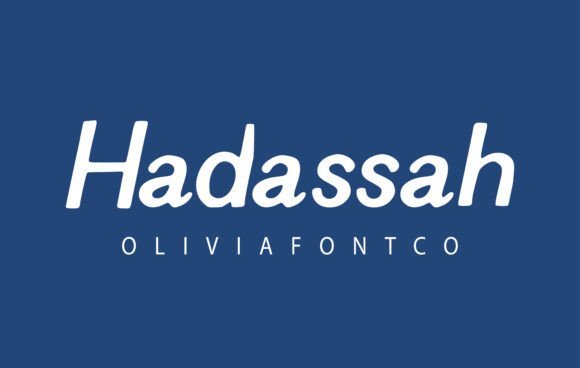
Hadassah Font: The Ultimate Choice for Creative Expression
Are you looking for a font that can add a touch of romance and elegance to your creative projects? Look no further than the Hadassah font. This authentic handwritten font is expertly designed to capture the hearts of designers and audiences alike. With its unique blend of sophistication and playfulness, Hadassah font is the perfect choice for a wide range of applications, from magazine headlines to wedding invitations.
The Story Behind Hadassah Font
Hadassah font is more than just a beautiful typeface; it’s a reflection of the creative vision of its designers. With a focus on legibility and aesthetics, this font is designed to be a true favorite among designers. Whether you’re working on a branding project, social media graphics, or a wedding invitation, Hadassah font is the perfect choice. Its romantic touch and authentic handwritten feel make it stand out from other fonts, giving your designs a unique and personalized look.
Key Features of Hadassah Font
So, what makes Hadassah font so special? Here are some of its key features:
- Authentic Handwritten Font: Hadassah font is designed to mimic the look and feel of handwritten text. Its authentic feel makes it perfect for designs that require a personal touch.
- Romantic Touch: With its elegant and sophisticated design, Hadassah font adds a touch of romance to any project.
- Legible: Despite its handwritten feel, Hadassah font is highly legible, making it perfect for both title and body text.
- Versatile: Hadassah font can be used for a wide range of applications, from magazine headlines to social media graphics, branding, wedding invitations, and more.
Uses of Hadassah Font
Hadassah font is an incredibly versatile typeface that can be used for a variety of creative projects. Here are some of the many uses of Hadassah font:
Magazine Headlines
Hadassah font is perfect for magazine headlines, adding a touch of elegance and sophistication to any article or feature.
Social Media Graphics
Make your social media graphics stand out with Hadassah font. Its unique and personalized look is sure to grab the attention of your audience.
Branding
Establish your brand identity with Hadassah font. Its authentic handwritten feel and romantic touch make it perfect for creating a unique and memorable brand image.
Wedding Invitations
Make your wedding invitation truly special with Hadassah font. Its elegant and sophisticated design is sure to set the tone for your big day.
Cards and Stationery
From greeting cards to stationery, Hadassah font is the perfect choice for adding a touch of elegance and sophistication to your designs.
Why Choose Hadassah Font?
With so many fonts available, why choose Hadassah font? Here are just a few reasons:
- Unique and Personalized: Hadassah font has a unique and personalized look that sets it apart from other fonts.
- Elegant and Sophisticated: With its romantic touch and authentic handwritten feel, Hadassah font adds a touch of elegance and sophistication to any project.
- Highly Legible: Despite its handwritten feel, Hadassah font is highly legible, making it perfect for both title and body text.
- Versatile: Hadassah font can be used for a wide range of applications, making it a great addition to any designer’s toolkit.
In conclusion, Hadassah font is a beautiful and versatile typeface that is perfect for creative designers. With its authentic handwritten feel, romantic touch, and high legibility, it’s the perfect choice for a wide range of applications. Whether you’re working on a branding project, social media graphics, or a wedding invitation, Hadassah font is sure to take your creative ideas to the highest level.